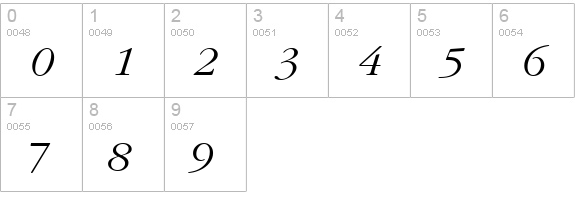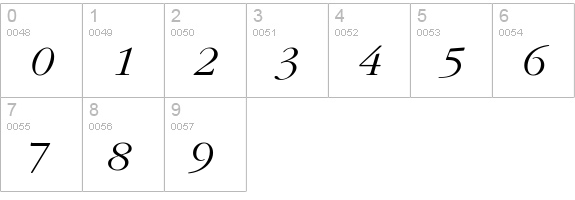
Garfeld-Nova-Light Italic is a refined, elegant, italic variant in the Garfeld typeface family \xE2\x80\x94 well suited to elegant body text, refined sub-headings, and luxury branding.
Garfeld-Nova-Light Italic is a sleek and modern font that combines elegance with a touch of playfulness. Its slim, italic design adds a sophisticated flair to any project, making it perfect for both professional and creative endeavors. This font is versatile and can be used for a wide range of design purposes, from branding to digital media. What's even better is that Garfeld-Nova-Light Italic is completely free to download at FontsMarket.com. Whether you're a designer looking to add a fresh font to your collection or a business owner in need of a stylish typeface for your marketing materials, this font is a fantastic choice. Don't miss out on the opportunity to enhance your projects with this beautiful and freely available font. Download Garfeld-Nova-Light Italic today and take your designs to the next level!